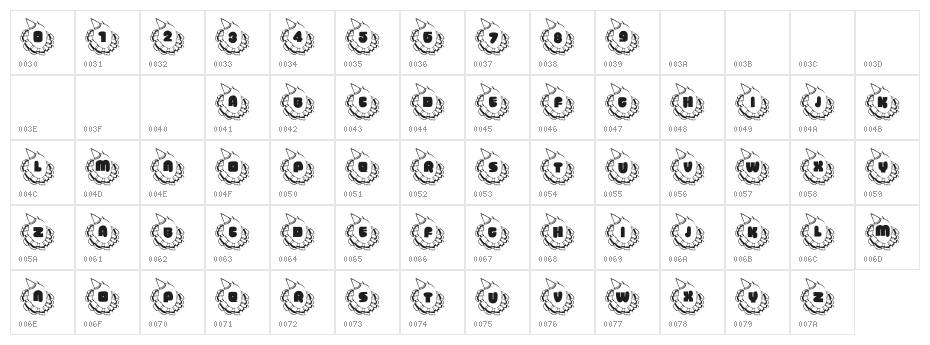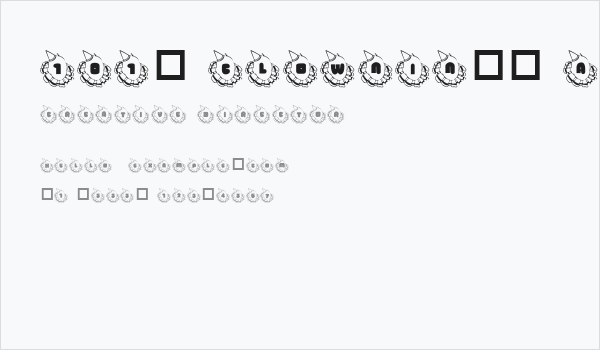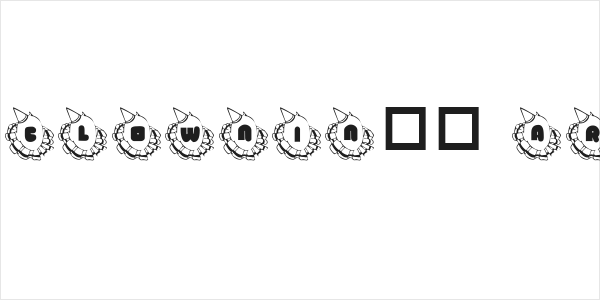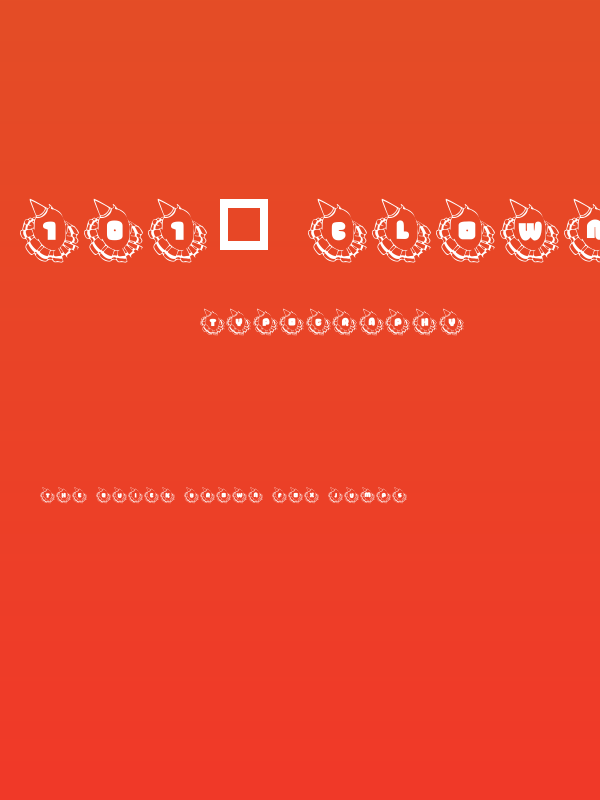
101! Clownin' Around Font
101! Clownin' Around Description
This playful and whimsical font features each character encased within a clown face, complete with a hat and ruffled collar. The letters and numbers are bold and clear, making them easily readable despite the decorative elements surrounding them. The design is highly detailed, with each clown face adding a unique and humorous touch to the characters. This font is perfect for projects that require a fun and lighthearted aesthetic, such as children's party invitations, circus-themed events, or playful branding materials.
| Use Case | Headlines, Logos, Decorative text |
| Proposed Projects | Children's party invitations, circus-themed events, playful branding materials. |